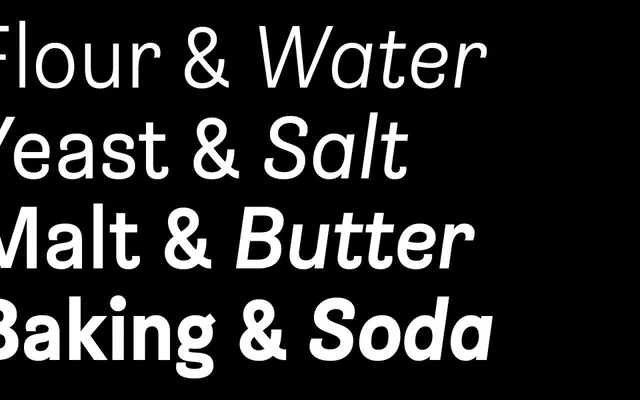
Brezel Grotesk
A grotesque sans by Stefanie Preis drawn from 19th-century models and shaped by the organic curves of a Bavarian pretzel.
Designed by Stefanie Preis, Brezel Grotesk takes the structural conventions of 19th-century grotesque sans-serifs and introduces terminal details derived from the looping form of a Bavarian pretzel. The family runs across four weights from Light to Bold, each with a matching oblique, and covers an extended Latin character set. It is pitched at text settings where calm rhythm and legibility at small sizes matter, whilst retaining enough character at display sizes to hold interest.
Explicitly inspired by 19th-century Grotesques, with organic terminal details drawn from the curves of a Bavarian pretzel. The design sits firmly in the grotesque sans tradition.